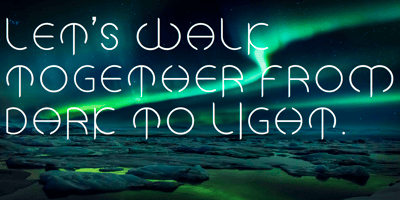
Ongunkan Fantastic Latin Font Family was designed by Osman Nuri ALKAN and published by Runic World Tamgacı. Ongunkan Fantastic Latin contains 1 styles and family package options. A fantastic font that I came up with after 3 weeks of work. It was a nice and attractive version of the Latin alphabet. Use it with pleasure.